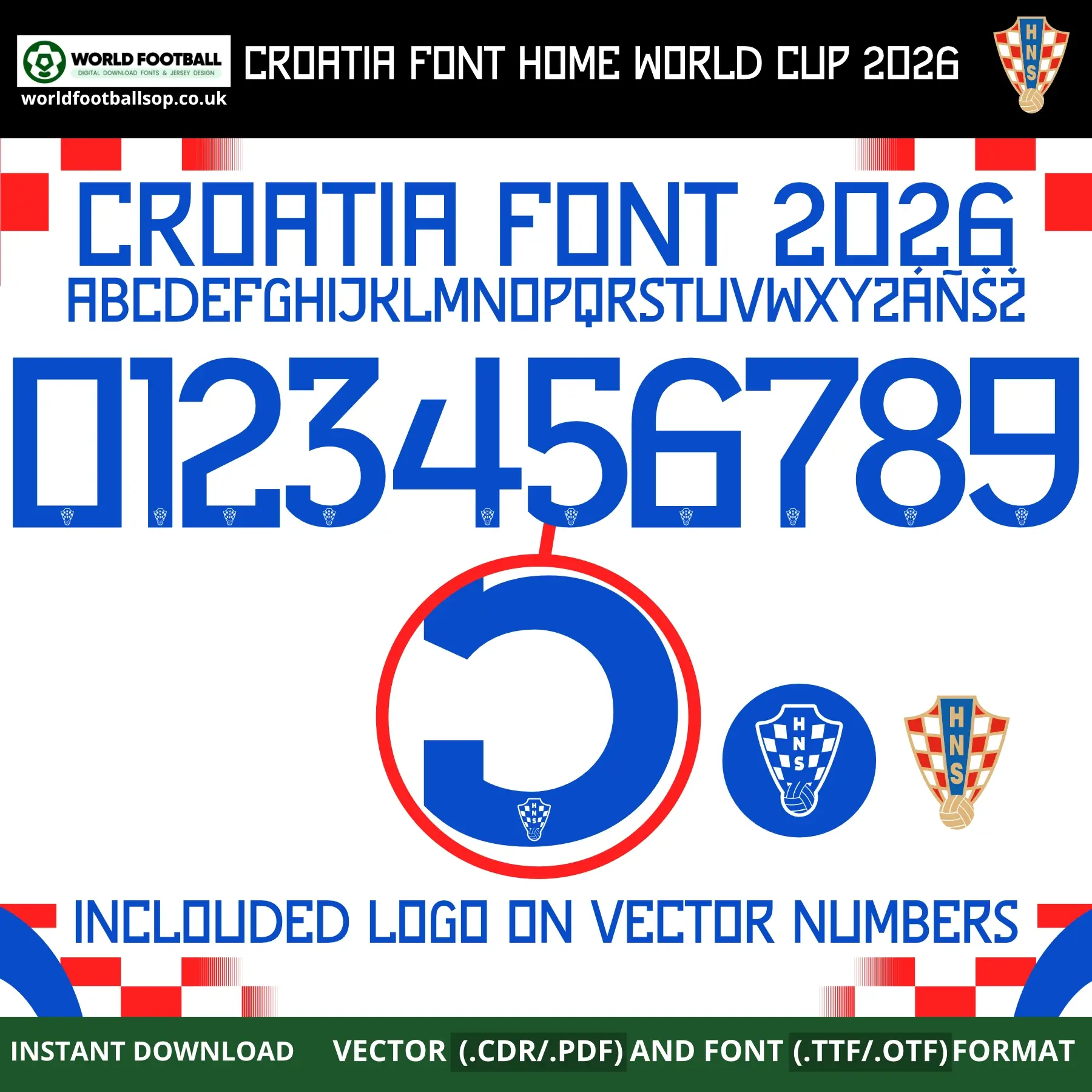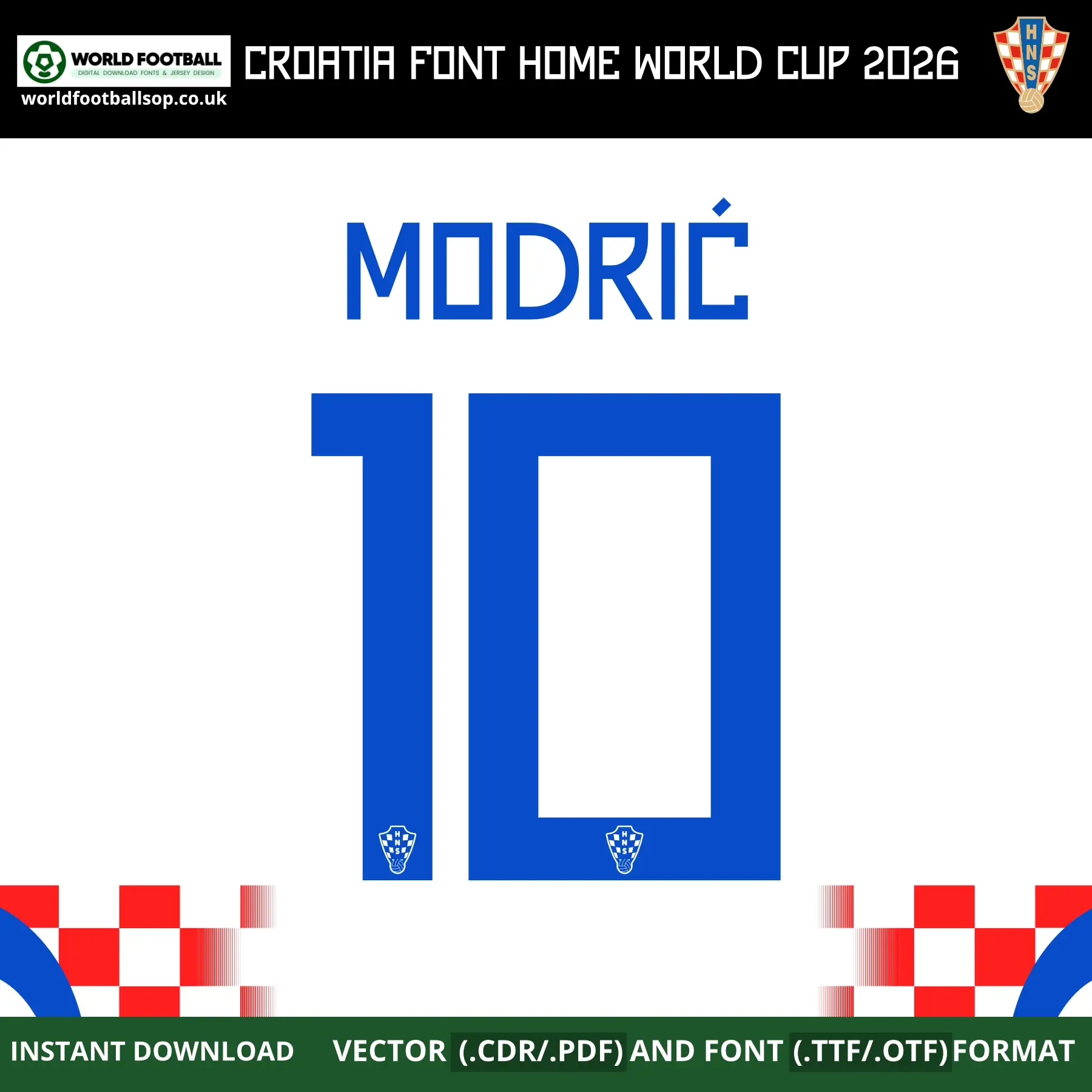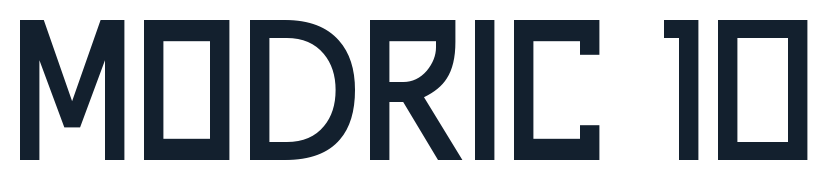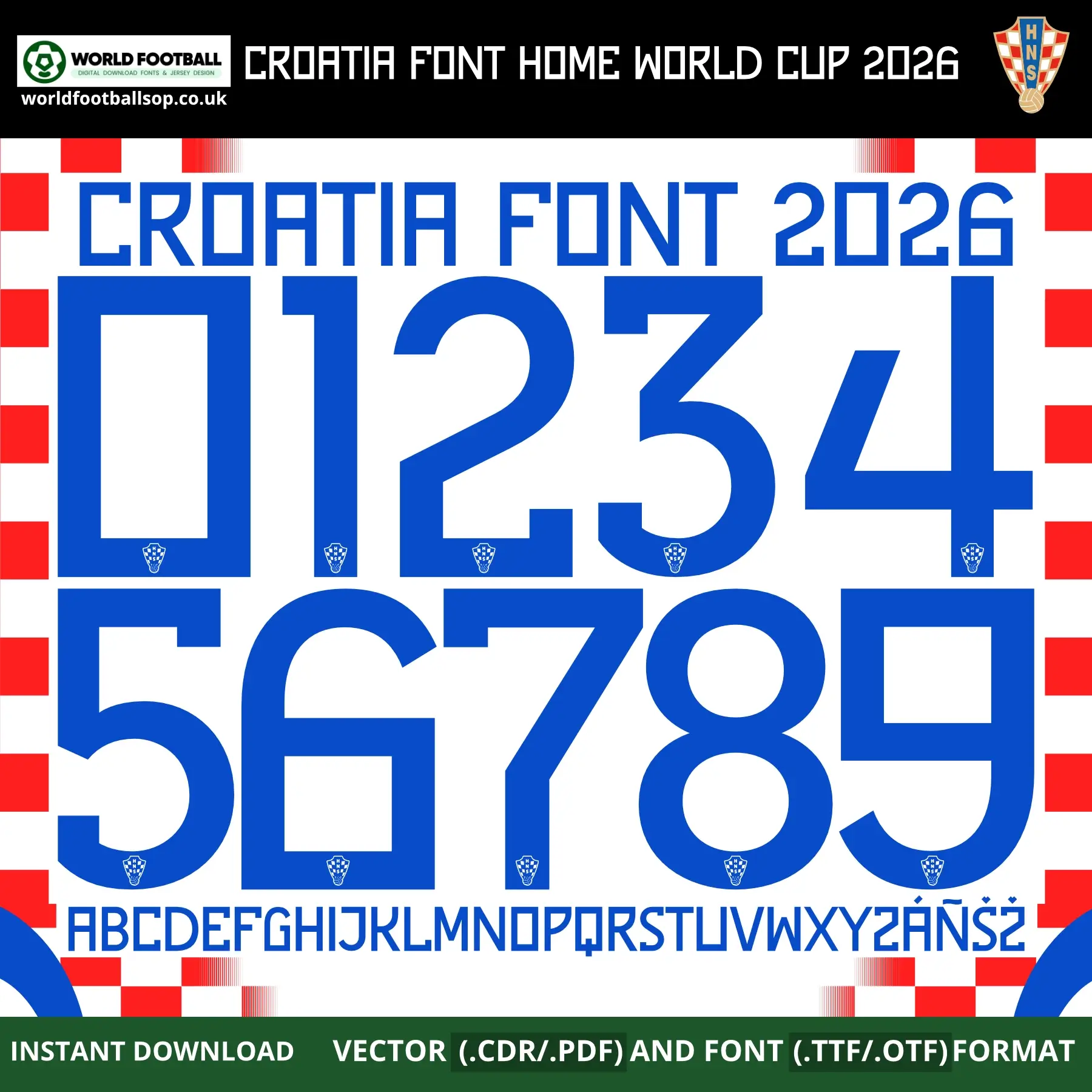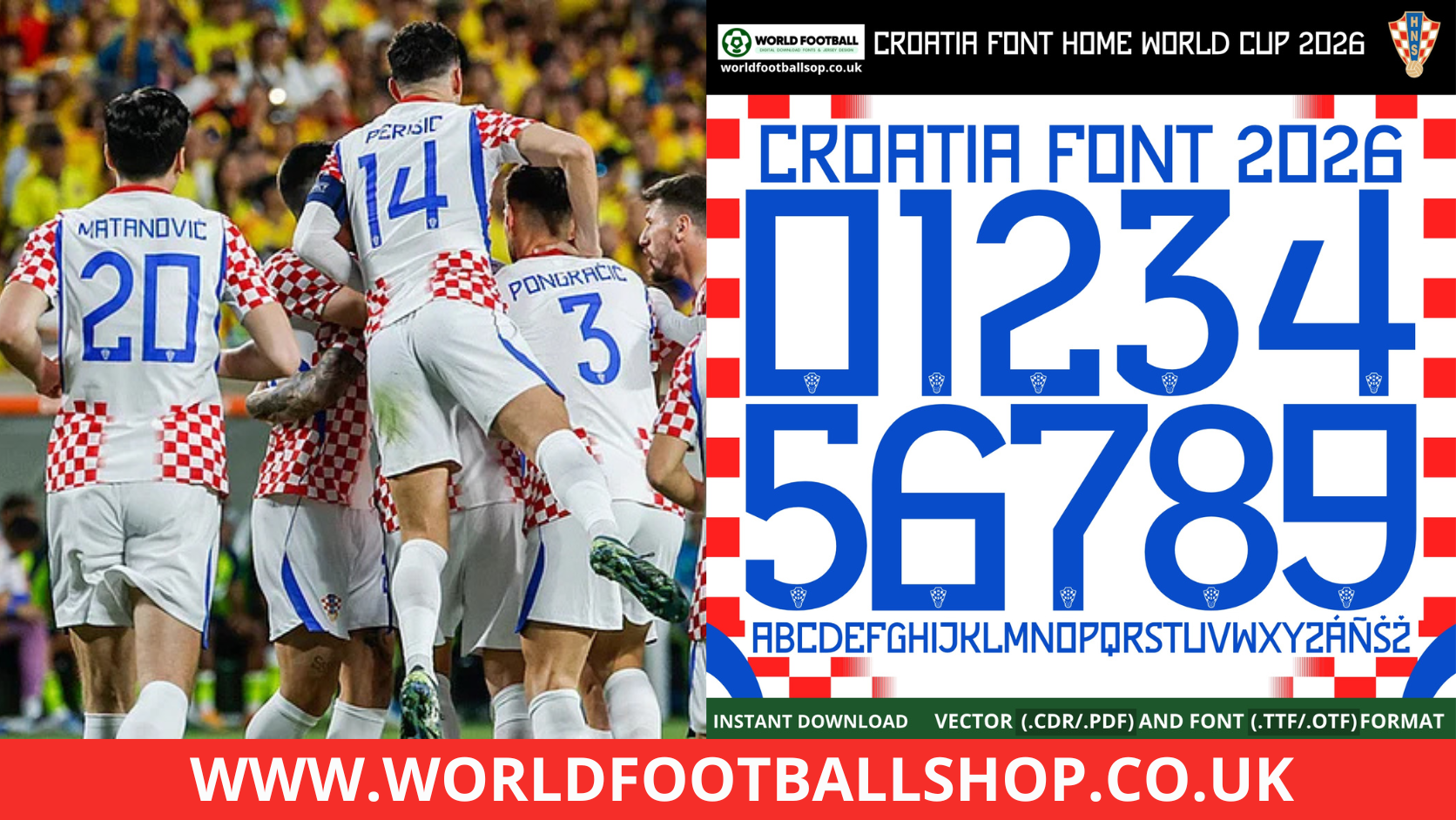
Croatia Home Font World Cup 2026 - Official‑style Jersey Typography
This Croatia Home Font World Cup 2026 kit recreates the bold, wide geometric lettering used on Croatia's iconic white and red checkered home shirts for the 2026 FIFA World Cup in USA, Mexico and Canada. The tall, open-form numbers and letters feature a striking royal blue fill with a clean white hollow cutout - a design that mirrors the bold, minimalist character of Croatia's official home kit typography on one of the most recognisable jerseys in world football. It is perfect for fans, designers and printers who want authentic‑looking names and numbers on custom Vatreni kits and football graphics.
Full uppercase alphabet A-Z and numbers 0-9 with Croatian accents (Á, Ñ, Š, Ž)
Preview layouts showing complete number set and example name/number combo - MODRIĆ 10
World Cup accuracy: Inspired by the exclusive Croatia Home Font World Cup 2026, not a generic typeface
High legibility: Bold, open-form blue characters keep numbers clear on both TV and print designs while maintaining Croatia's iconic checkered identity
Whether you are designing a full squad of custom Croatia Vatreni shirts or a single fan jersey with your own name and number, this Croatia Home Font World Cup 2026 gives your project a professional, on‑pitch look.